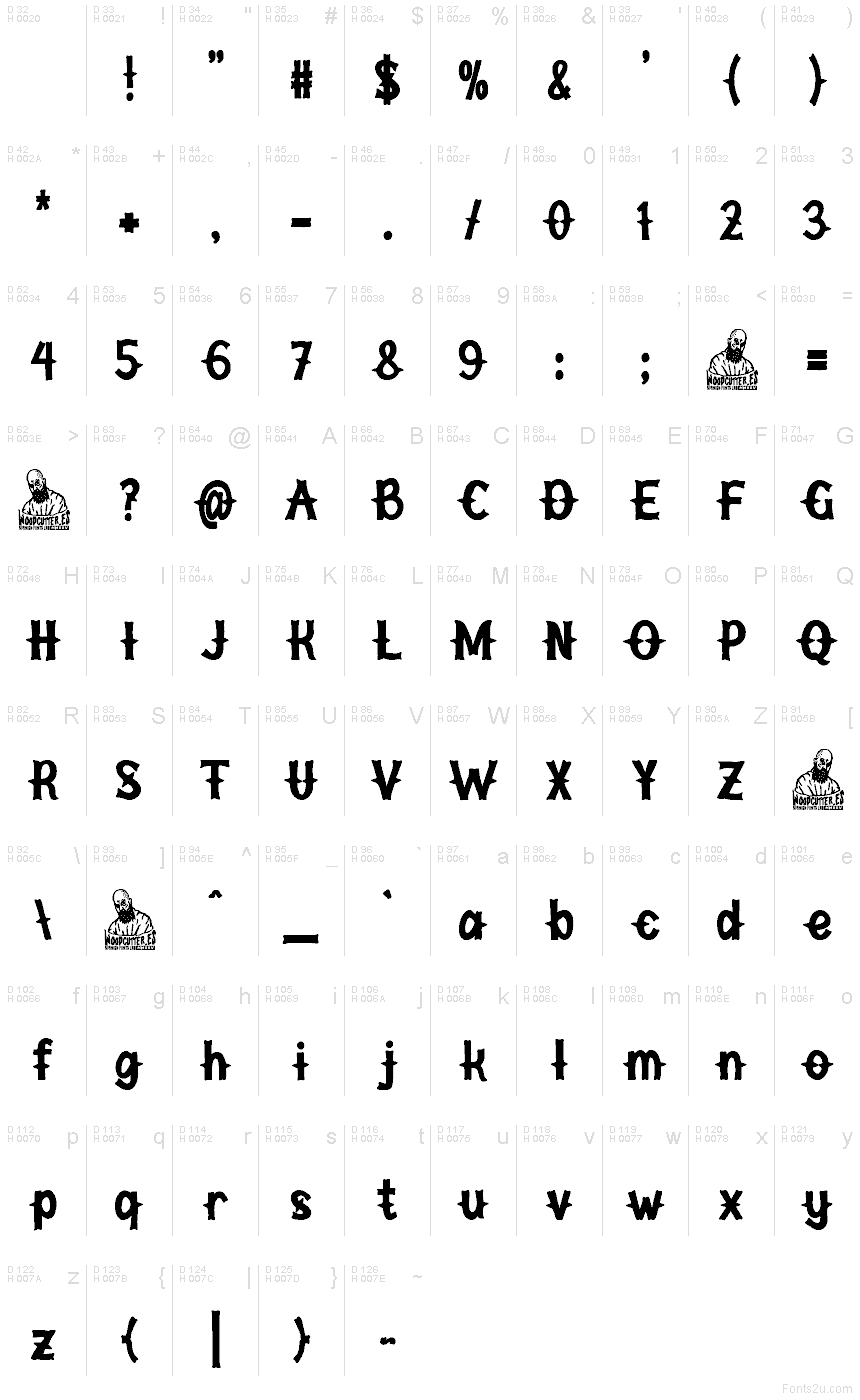
Iglesias Church
Iglesias Church font by Woodcutter is a free modern gothic display font. Its chunky, inky strokes feel hand-cut—like letters carved from black paper—while sly crescent notches and little horned flicks add a candlelit drama. Despite the theatrics, the rhythm stays steady, giving you that moody, medieval whisper without losing clarity at headline sizes.
Using Iglesias Church, you can push atmosphere on horror posters, haunted-event flyers, occult zines, dark fantasy book covers, metal album art, indie game titles, and themed merch. The weighty forms grab attention fast and hold it with their carved texture. Pair this free font with a plain, light sans for body copy, and let the headline breathe with generous tracking.
Iglesias Church.